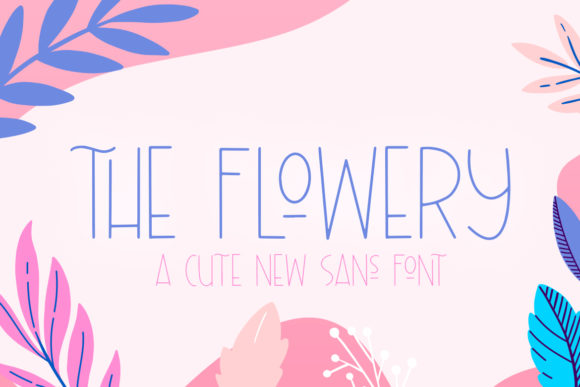
Introducing The Flowery Font, a delicate and neat sans serif font that will take your creative projects to new heights! Created by Salt and Pepper Fonts, this font is the epitome of elegance and sophistication. With its captivating design and extensive versatility, The Flowery Font is the best font for script enthusiasts, and here's why:
Unleash Your Creative Ideas: The Flowery Font is a true game-changer when it comes to adding a touch of beauty and charm to your designs. Whether you're working on invitations, logos, branding materials, or any other creative project, this font effortlessly enhances your ideas, making them shine with a unique flair.
Endless Possibilities: With The Flowery Font, the possibilities are truly limitless. Its versatility allows it to seamlessly adapt to a wide range of projects, from romantic wedding invitations to elegant packaging designs. No matter the style or theme, this font effortlessly complements and elevates your work, leaving a lasting impression on anyone who sees it.
Attention to Detail: Every curve and line in The Flowery Font has been meticulously crafted, resulting in a captivating and flawless typeface. The delicate strokes and balanced proportions create a harmonious blend of elegance and modernity, making it a must-have for designers who appreciate the finer details.
Stand Out from the Crowd: In the world of design, standing out is essential, and The Flowery Font guarantees just that. Its unique and eye-catching appearance captures attention and sets your work apart from the rest. Whether you're designing social media graphics or crafting a stunning website, this font will captivate your audience and leave them wanting more.
Unleash the Power of The Flowery Font: Enhance your designs, captivate your audience, and unlock a world of creativity with this extraordinary sans serif font. Whether you're a professional designer or an aspiring creative, The Flowery Font will be your trusted companion on your artistic journey.